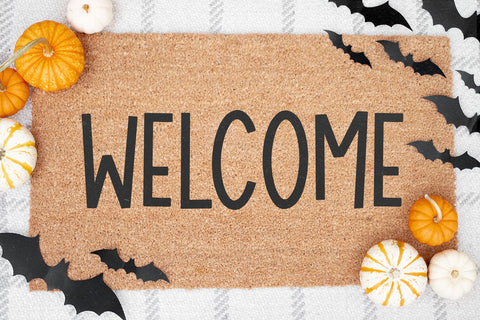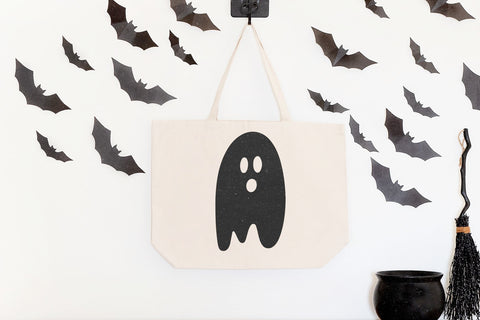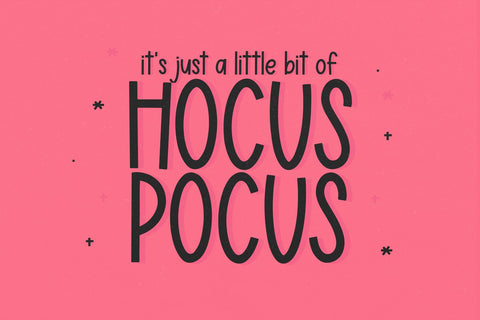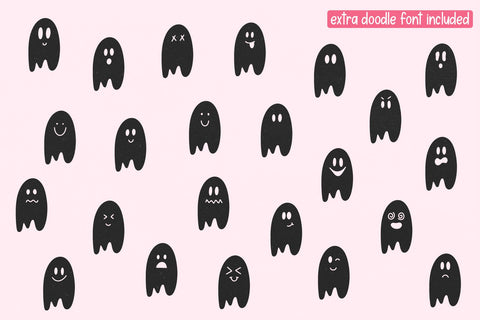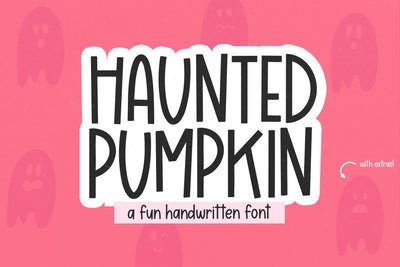
Haunted Pumpkin - Handwritten Font with Ghost Doodles
Haunted Pumpkin is a fun handwritten font perfect for all of your cricut projects, Halloween designs, svg designs, stickers, procreate designs and more!
*Includes Bonus Font*
Ghost Faces - 26 Ghost doodles with various expressions